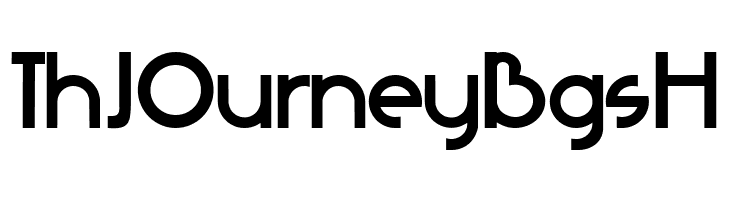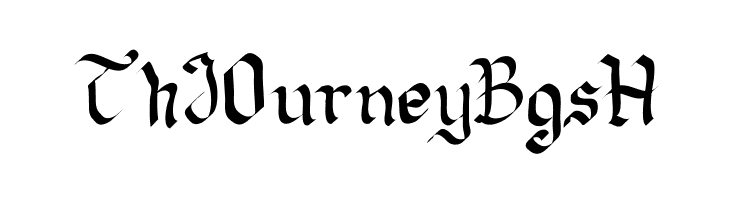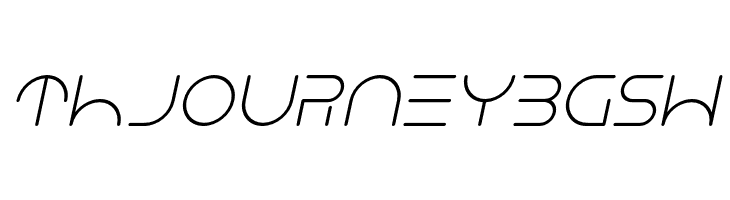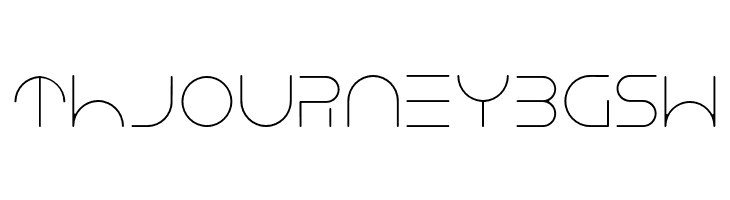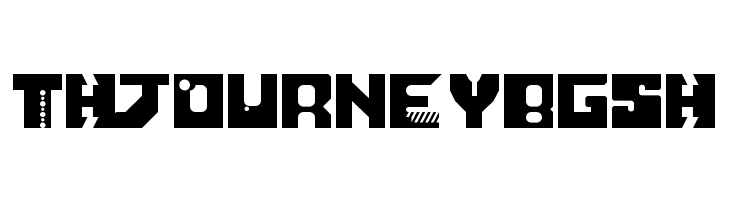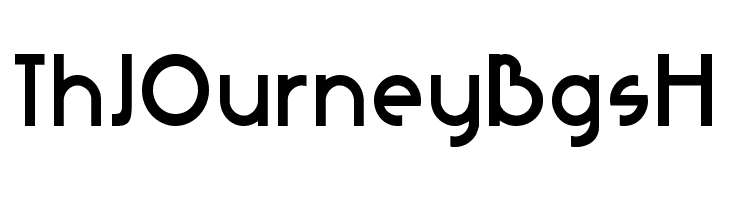
A futuristic, geometric font with bold, angular letterforms and unique cutouts.
A futuristic, minimalist font with geometric shapes and consistent stroke width.
A futuristic, geometric font with rounded, continuous lines and a modern aesthetic.
A sleek, modern italic font with a futuristic design and continuous line style.
A sleek, futuristic font with thin, continuous lines and a minimalist aesthetic.
A modern, rounded font with a futuristic and fluid design.
A bold, Gothic-style font with sharp, angular lines and intricate detailing.
A modern, geometric font with clean lines and a structured appearance.
A modern, geometric font with bold, clean lines and a cohesive design.